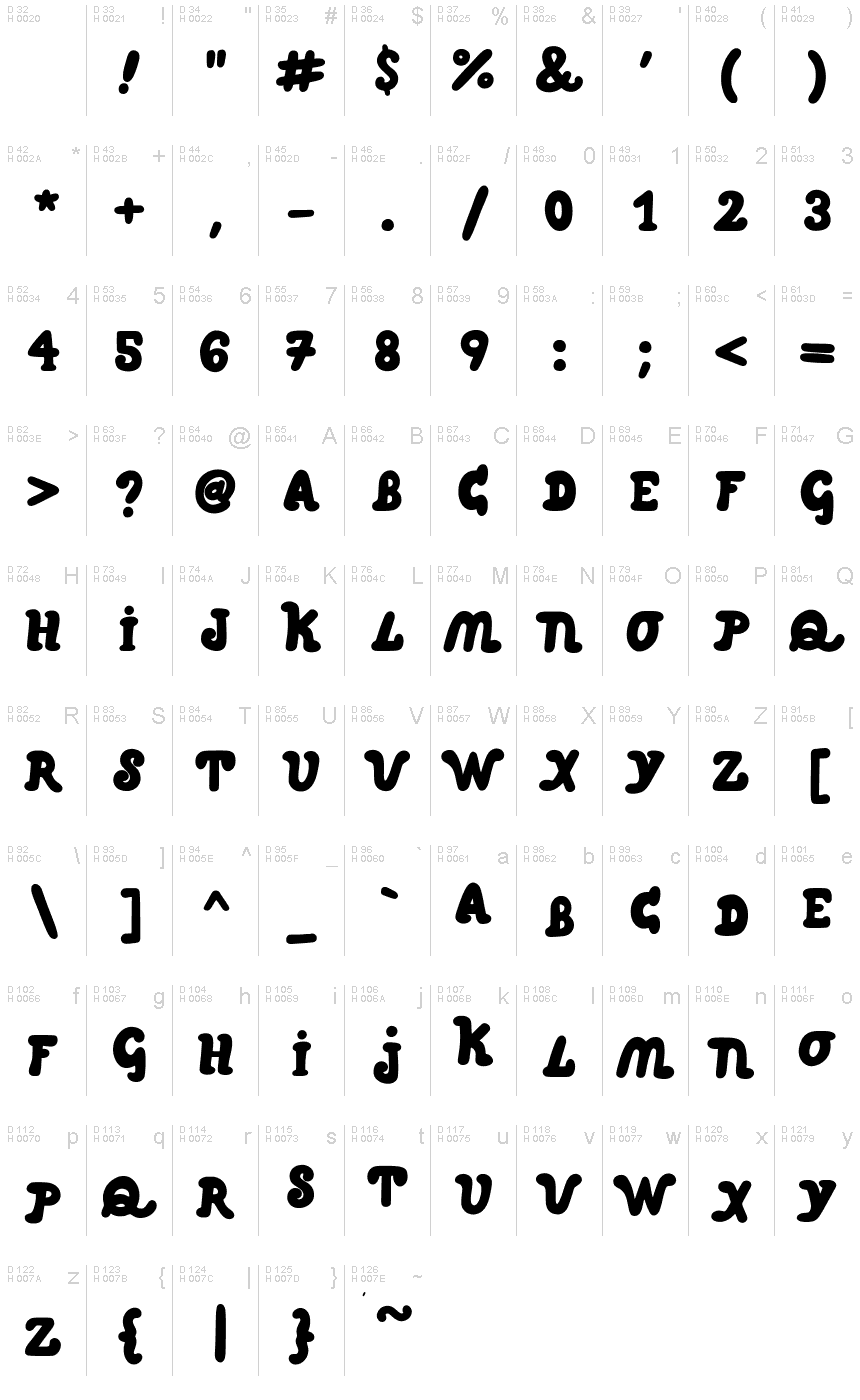
Pumuqui
Meet Pumuqui, the playful display font designed by Sara Marcos. Its cartoon-inspired style exudes whimsy and fun, making it perfect for a variety of projects. Use the bold weight for attention-grabbing headlines or titles on children's books, party invitations, or even logos for a creative agency. The unique design of Pumuqui adds character to any project and is sure to leave a lasting impression on viewers. Let your creativity run wild with Pumuqui!